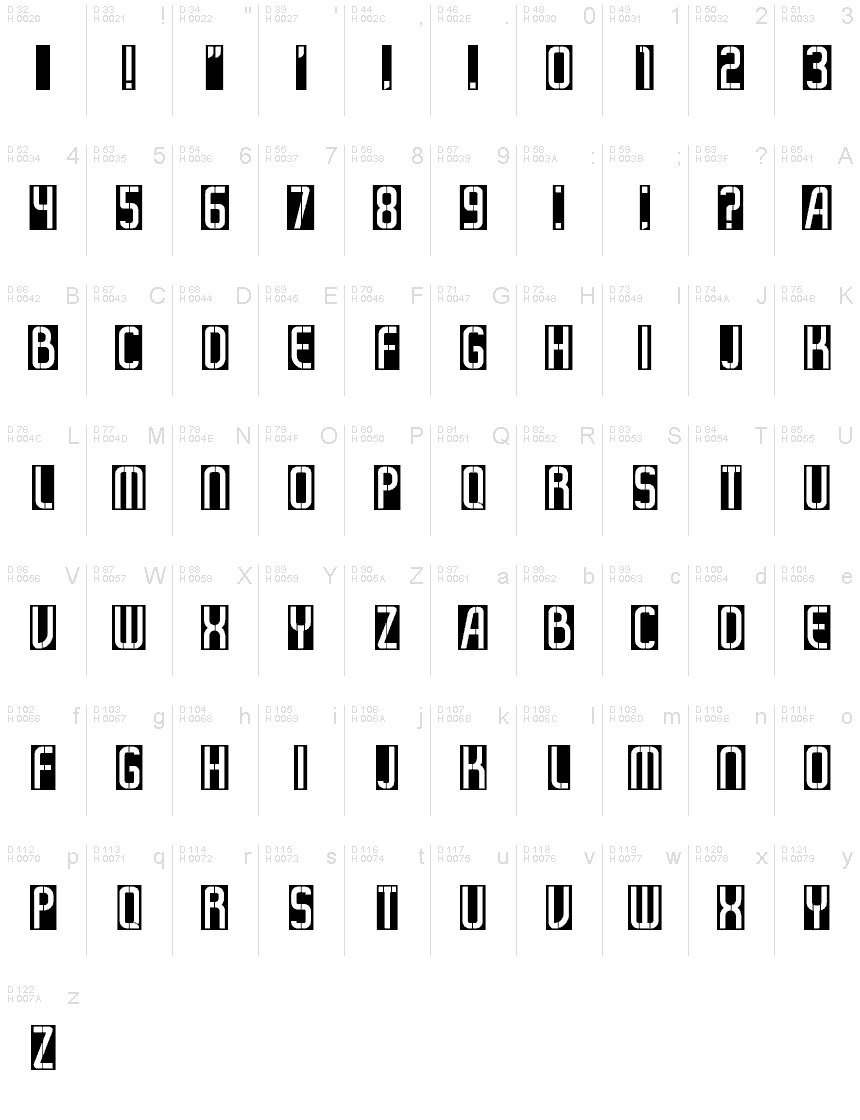
Hour And Date Regular
The Hour And Date Regular free font is a display stencil font that belongs to the Hour And Date font family. It was designed and shared by Vladimir Nikolic and it’s perfect for the bold design projects you want to create.
It includes the uppercase letters as well as the numbers. This font can be used for a variety of projects, so try it for titles and headings for articles, posters, banners, ads, website design and much more. Use it for branding design and logo design, invitation cards and packaging design. Download and check it out!